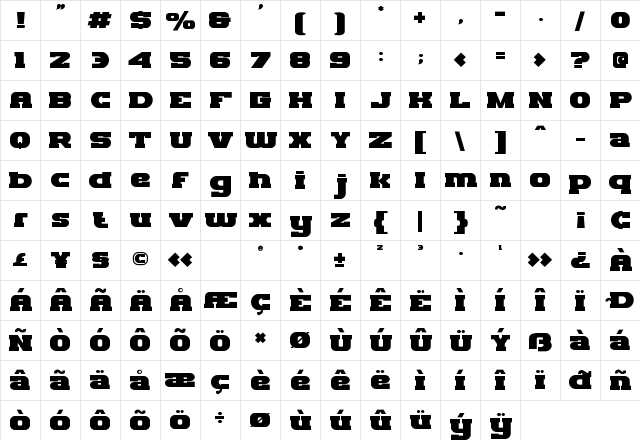
Marseilazi Slab Regular
Foundry: Putracetol Studio, Karanganyar.
Designer: Putra Novembria Candra Kusuma
Design Context for Marseilazi Slab
Marseilazi Slab features prominent, blocky serifs that give it a confident, grounded presence - equally at home in editorial settings and bold branding work.